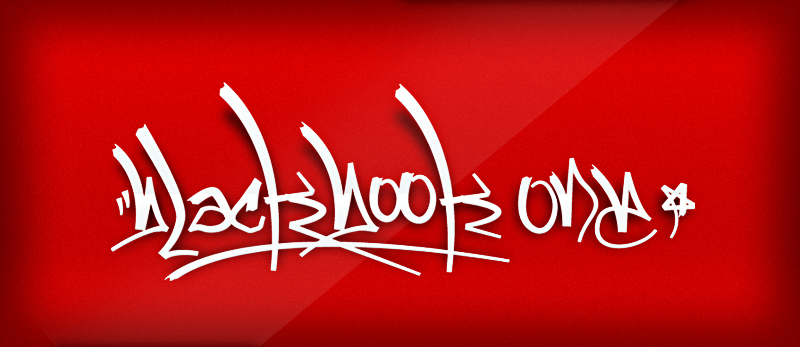
A collaboration between Louie Fortay (lootrituals.com) and Michael Muranaka BlackbookOne is the first in a series of Blackbook Graffiti Fonts. Letters can be arranged and styled for limitless design possibilities, PERFECT for titling, background textures, CD art, etc. Bust out your designs then rock a B Boy stance- http://michaelmuranaka.com http://lootrituals.com ----------------------- This font is totally free. Please use this font however you see fit, personally or commercially. http://michaelmuranaka.com/font-licensing-agreement/ ----------------------- Check out my new Font Blog to stay up to see when I release new fonts! http://michaelmuranaka.com/category/fonts/ ----------------------- Please DO NOT download this font and redistribute it on another website!!! This is free to do with whatever you wish, personal or commercial. Just don't claim ownership, sell it, redistribute it, or be a jerk with it. It might be cool if you use the font to either credit MuraKnockout Media or Michael Muranaka, or show me how you used it! Enjoy! |